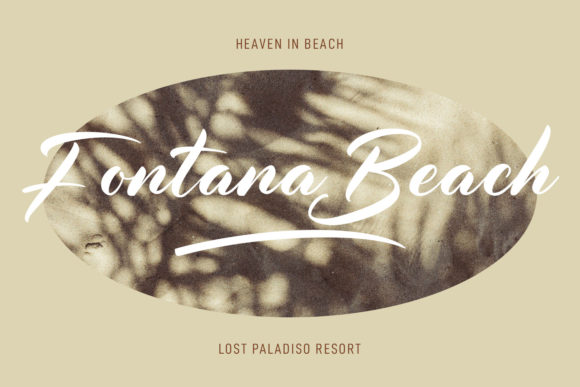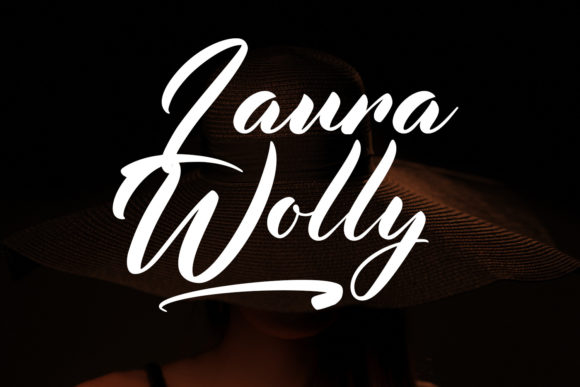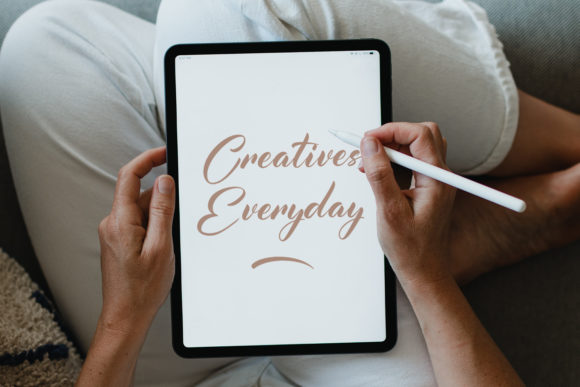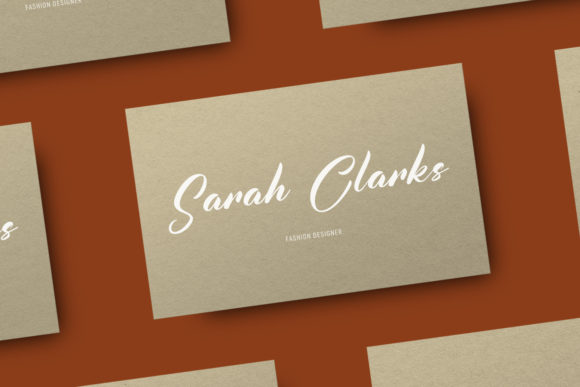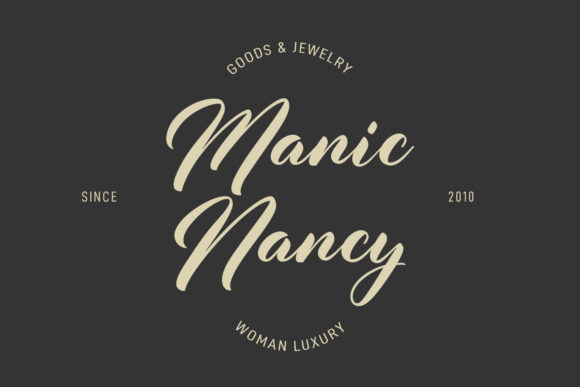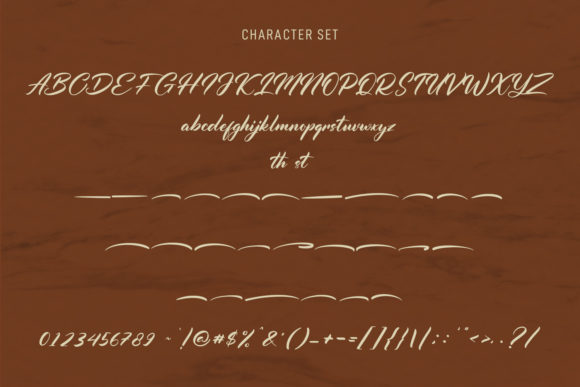
Introducing Chillybeans Script Font: Elevate Your Designs with Elegance
In the world of typography, script fonts hold a special place for their ability to add a touch of elegance and sophistication to any design. Among these, the Chillybeans Script font stands out as a lovely and delicate addition that can instantly uplift the aesthetic appeal of your projects. Crafted with precision and a keen eye for detail, Chillybeans Script is not just a font; it’s an experience. Whether you’re a designer looking to add a personal touch to your branding, a crafter aiming to make your DIY projects stand out, or a digital artist seeking to infuse elegance into your artwork, Chillybeans Script is your go-to choice.
The Charm of Chillybeans Script
Chillybeans Script is a beautifully designed script font that exudes elegance and class. Its unique charm lies in its delicate strokes and the fluidity of its letters, which come together to create a harmonious and visually appealing text. This font was particularly crafted for those who need a beautiful and refreshing look to their designs. Whether it’s for a wedding invitation, a branding project, a packaging design, or a personal craft project, Chillybeans Script offers the perfect blend of sophistication and charm.
Key Features of Chillybeans Script Font
- Elegant and Delicate Design: The font boasts elegant and delicate strokes that add a touch of sophistication to any design.
- Versatility: Chillybeans Script is highly versatile and can be used for a wide range of projects, from digital designs to print materials.
- Easy to Read: Despite its delicate nature, the font is easy to read, making it perfect for both headings and body text.
- Unique Character Set: The font comes with a unique character set, including ligatures and extended punctuation, allowing for creative and varied typography.
Uses of Chillybeans Script Font
The versatility of Chillybeans Script makes it suitable for a multitude of design applications. Here are some popular uses:
- Wedding and Event Stationery: Add a touch of elegance to your wedding invitations, save-the-date cards, and other event stationery.
- Branding and Logo Design: Use Chillybeans Script to create a sophisticated and memorable brand identity.
- Packaging Design: Elevate your product packaging with a font that speaks of luxury and quality.
- Digital and Print Media: Whether it’s a website, a blog, a magazine, or an advertisement, Chillybeans Script can add a classy look to your content.
- Crafting and DIY Projects: Perfect for crafters, the font can be used in various DIY projects like handmade cards, journals, and art pieces.
Tips for Using Chillybeans Script Effectively
To make the most out of Chillybeans Script, consider the following tips:
- Pair with Complementary Fonts: For a harmonious look, pair Chillybeans Script with sans-serif fonts for contrast.
- Adjust Letter Spacing: For better readability, especially in longer texts, adjust the letter spacing to ensure a comfortable look.
- Use it as a Headline Font: Due to its elegant nature, Chillybeans Script is best used for headlines, but it can also be used for short paragraphs or quotes.
Chillybeans Script Font is a beautiful addition to the world of typography, offering designers and crafters a tool to add elegance and sophistication to their projects. Its delicate design, versatility, and ease of use make it a preferred choice for a wide range of design applications. Whether you’re aiming to create a stunning brand identity, design beautiful event stationery, or simply add a touch of elegance to your crafting projects, Chillybeans Script is sure to exceed your expectations.